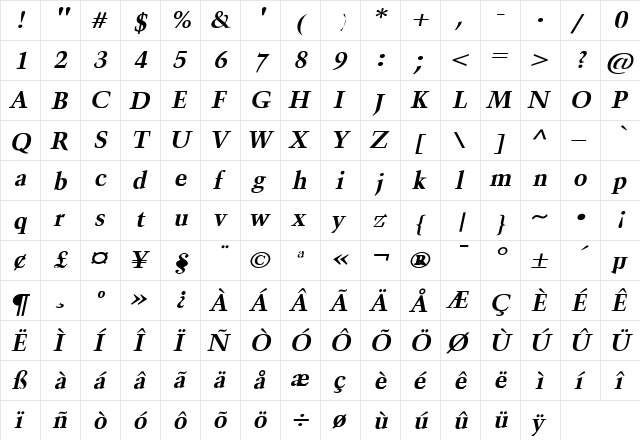
Horn Wide Bold Italic Font Preview
Design Context for Horn Wide Typeface
Horn Wide takes a measured approach to typography — its balanced proportions and neutral character make it a reliable workhorse for both digital and print work. The slanted form adds forward momentum and visual energy. The heavy weight commands attention and anchors typographic hierarchies.